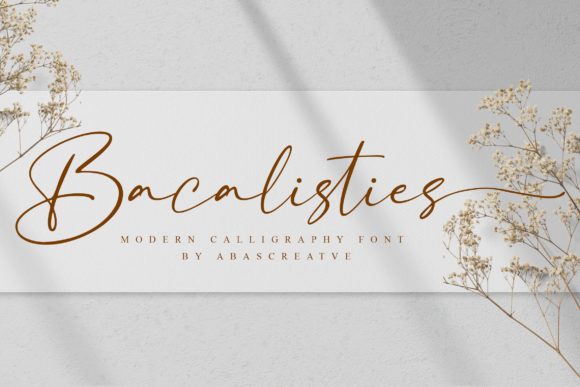
Looking for the perfect font to elevate your invitation designs? Look no further than Bacalisties Font, a remarkable addition to your collection. Created by AbasCreative, this script font exudes style and delicacy, making it an absolute must-have.
With its clean, thin, and smooth vibe, Bacalisties Font adds a touch of elegance to any design. Whether you're creating wedding invitations, party flyers, or greeting cards, this font will undoubtedly captivate your audience. Its unique and eye-catching appearance is sure to leave a lasting impression.
One of the standout features of Bacalisties Font is its PUA encoding. This means that accessing all the beautiful glyphs and swashes is a breeze. Unlock a world of design possibilities and let your creativity flow effortlessly.
Imagine the joy of your recipients as they receive an invitation adorned with Bacalisties Font. Its graceful strokes and intricate details create a sense of sophistication and charm. Your event will be instantly elevated, leaving a lasting impression on your guests.
Don't settle for ordinary fonts when you can have the best fonts for invitations. Bacalisties Font is the epitome of elegance, injecting a touch of magic into every design. Its versatility knows no bounds, making it perfect for a wide range of occasions.
In summary, Bacalisties Font is a stylish and delicate handwritten font that will enhance any design it graces. With its clean and smooth vibe, PUA encoding, and captivating appearance, this font is a game-changer for any design enthusiast. Make a statement with Bacalisties Font and watch your creations come to life.